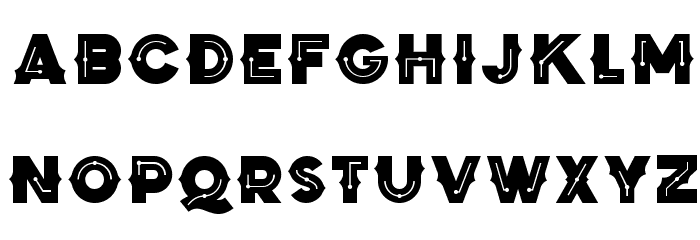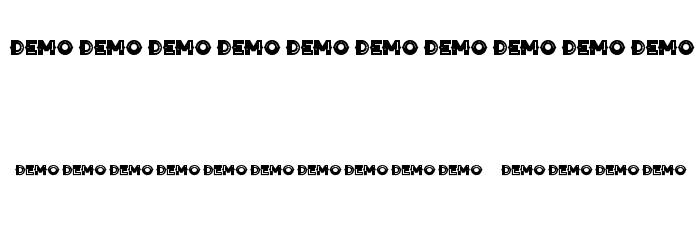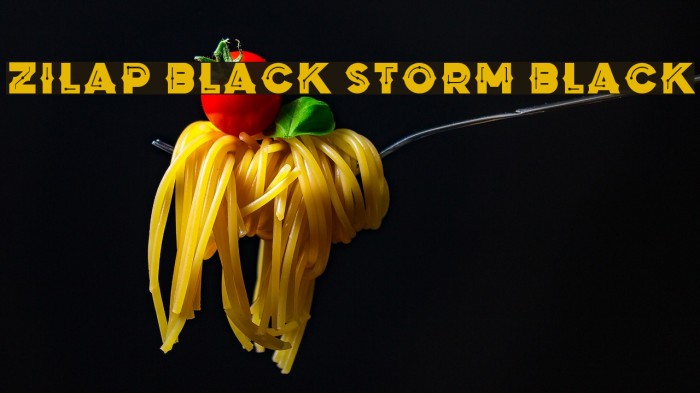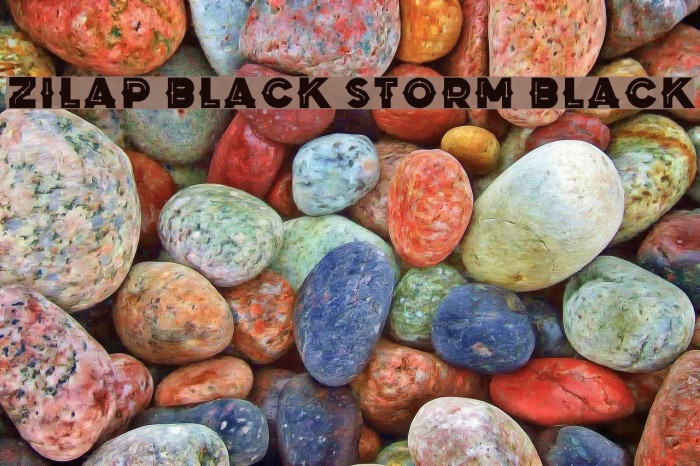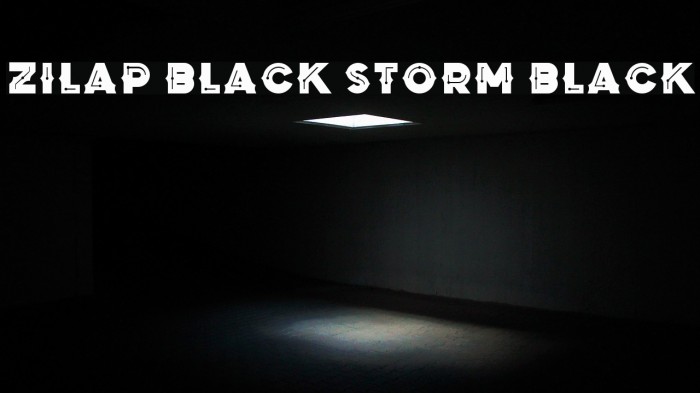
Zilap Black Storm Black Font
This font features a bold and striking design with a strong geometric influence. The characters are constructed with thick strokes and sharp angles, giving them a powerful and dynamic appearance. The font includes uppercase letters with a unique cut-out style that adds depth and dimension. The boldness of the characters makes them stand out, while the geometric elements provide a modern and edgy feel. This font is ideal for creating impactful headlines and logos that require a strong visual presence.
A bold, geometric font with sharp angles and cut-out style.
- Proposed Projects: Ideal for branding, poster design, and impactful headlines.